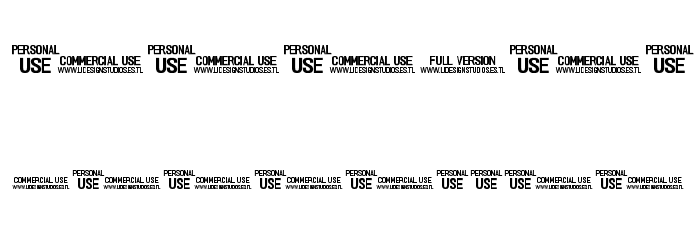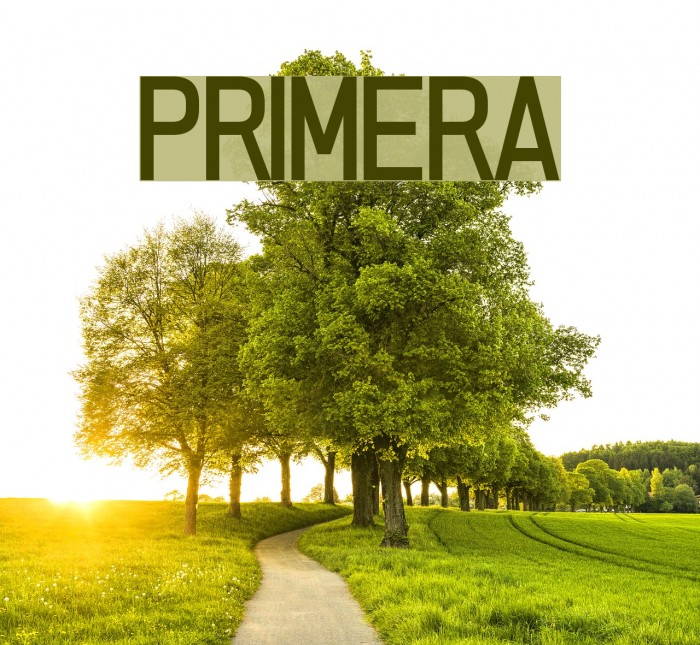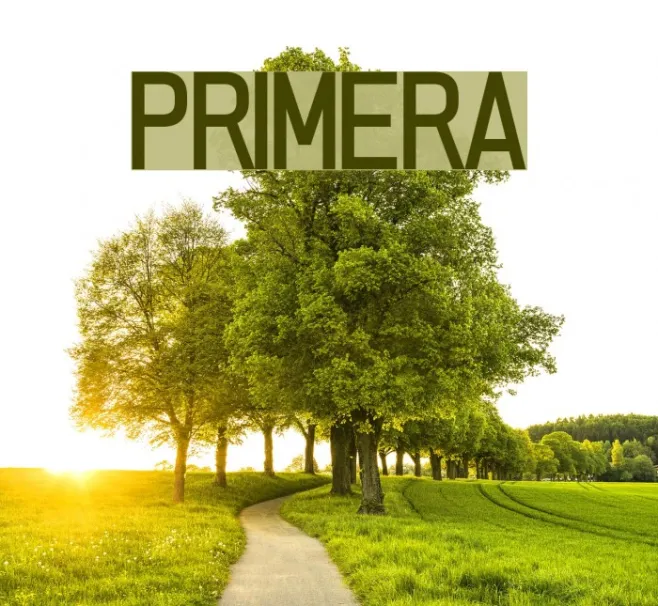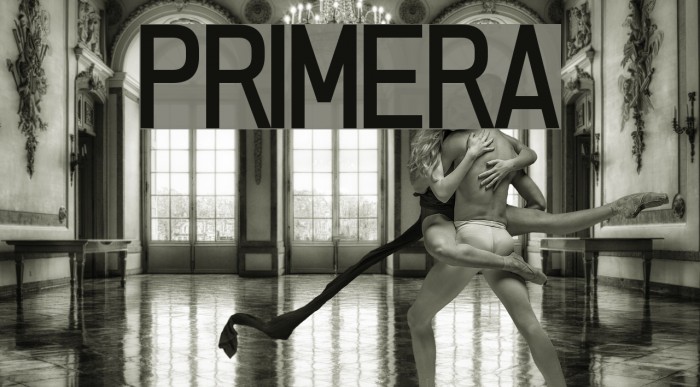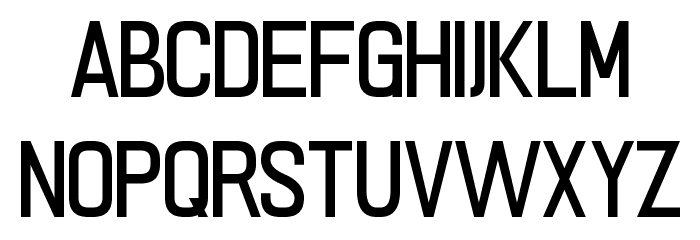
PRIMERA Font
This font features a bold, modern sans-serif style with clean, straight lines and a geometric structure. The uppercase letters are uniform in height, providing a strong and consistent appearance. The strokes are even, with minimal contrast, giving it a sleek and contemporary look. The characters are slightly condensed, allowing for efficient use of space without compromising readability. Its simplicity and clarity make it suitable for a variety of design applications.
A bold, modern sans-serif font with a geometric and clean design.
• Proposed Projects: Ideal for branding, advertising, headlines, and digital interfaces where a modern and professional look is desired.
• Category: Sans-Serif
• Bold: Yes
• Italic: No
• Weight: Bold
• Width: Condensed
• Character Spacing: Normal
• Contrast: Low
• Overall Style: Modern
• Use Case: Headlines, Logos, Branding